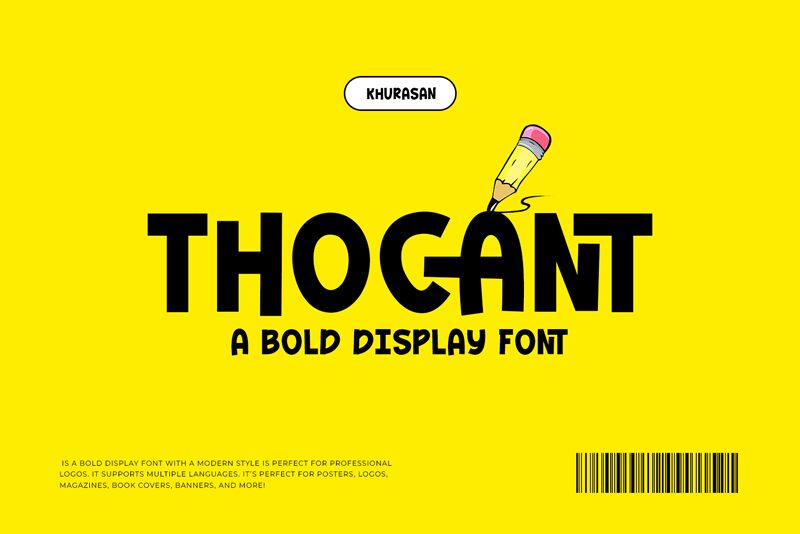
Thocant
Thocant font by Khurasan is a free bold cartoon display font that solves a familiar headache: playful headlines that still read clean at a glance. Its chunky, softly rounded forms have just enough wobble to feel hand-drawn, while even stroke weight and roomy counters keep the rhythm steady. The result is cheerful without chaos—inky, pillowy letters that hold together in tight compositions.
Using Thocant, you can punch up kids’ logos, toy packaging, birthday invites, snack branding, classroom posters, and YouTube thumbnails. The sturdy spacing resists mush at large sizes, and the friendly curves invite color and drop-shadow treatments. This free font pairs nicely with a simple geometric sans for body copy; set Thocant big with slightly tighter tracking for extra bounce.